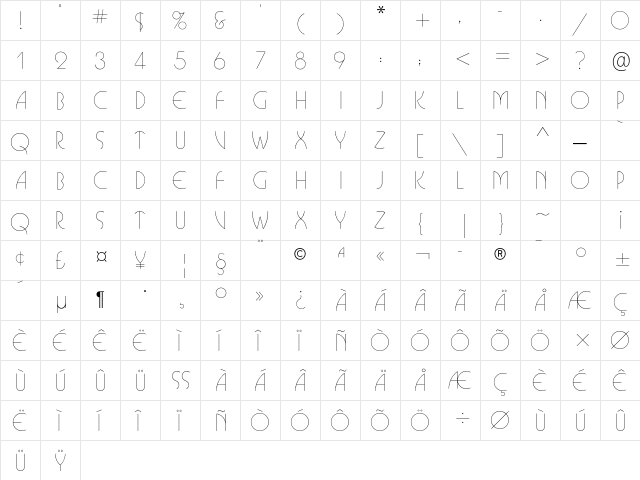
Busorama ITC Std Light
| Designer | Tom Carnase |
Design Context for Busorama ITC Std Typeface
Busorama ITC Std is a composed and adaptable typeface that performs quietly and consistently across a wide range of design contexts. The delicate stroke weight brings airiness and refinement to layouts.